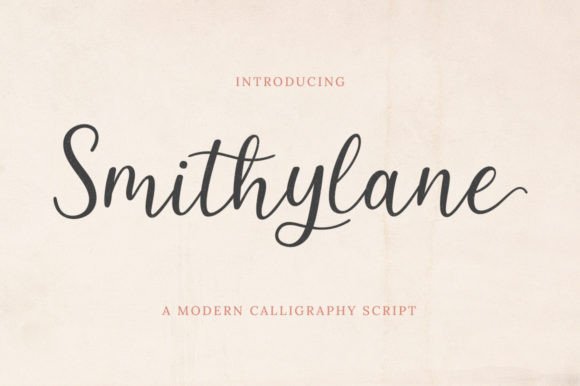
Welcome to the world of Smithylane, a script font family of remarkable beauty and sophistication. This stunning creation from Seagulls Creative presents a modern, stylish, and elegant typeface that is meticulously crafted for maximum impact in your design projects.
Picture this: a wedding invitation adorned with the exquisite lines of Smithylane. Its graceful swirls and delicate strokes bestow an air of timeless elegance upon your special day. Your guests will be captivated by the visual delight of this font, setting the tone for a memorable celebration.
The versatility of Smithylane extends far beyond wedding invitations. Imagine the allure of a brand logo designed with this captivating font. Its refined appearance exudes professionalism and sophistication, instantly elevating your brand's image. Whether you're a creative entrepreneur, a passionate blogger, or an ambitious marketer, Smithylane adds a touch of class to your creations.
Designers, rejoice! Smithylane's carefully crafted glyphs and swashes offer endless creative possibilities. Experiment with different combinations to create unique and captivating designs that speak volumes about your artistry. This font is your ultimate tool for expressing your creativity and capturing the attention of your audience.
So, whether you're a seasoned designer or just starting your creative journey, embark on a typographic adventure with Smithylane. Discover the joy of crafting designs that resonate with beauty, elegance, and individuality. Immerse yourself in the world of Smithylane and let your creativity flourish.